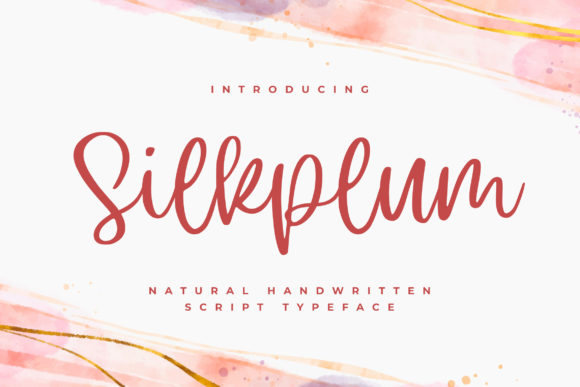
Embrace the enchanting world of Silkplum, a calligraphy font family that exudes elegance and grace. Its playfully dancing characters, reminiscent of a graceful ballet, will infuse your creative projects with a touch of whimsy and charm. Unleash your imagination and let Silkplum's fluid strokes captivate your audience, leaving them spellbound by your creations.
Crafted by the skilled hands of Damarletter, Silkplum is a masterpiece of digital calligraphy. Each letter is a work of art, carefully designed to flow seamlessly, creating a visual symphony that dances across the page. Whether you're designing wedding invitations, heartfelt letters, or eye-catching logos, Silkplum will elevate your designs to new heights of sophistication.
With Silkplum, you'll discover endless possibilities to express your creativity. Its versatility knows no bounds, adapting effortlessly to a wide range of design aesthetics. From delicate and ethereal to bold and striking, Silkplum will transform your words into captivating visual masterpieces that speak volumes.
Picture your designs adorned with Silkplum's enchanting script. Imagine the delight of your clients as they receive wedding invitations penned in this exquisite font, a testament to the love and care you've poured into their special day. Or envision your brand's logo, rendered in Silkplum's elegant strokes, commanding attention and leaving a lasting impression on your customers.
With Silkplum, you'll unlock a world of creative possibilities, transforming ordinary designs into extraordinary works of art. Its captivating charm and versatility will ignite your imagination and captivate your audience. Embrace the magic of Silkplum today and let your creativity flourish!